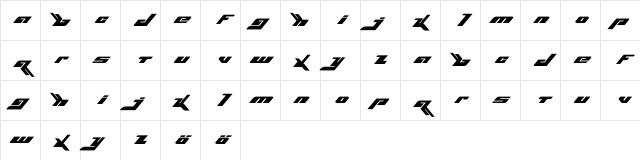
BjorkFont Regular
Design Context for BjorkFont
BjorkFont is a composed and adaptable typeface that performs quietly and consistently across a wide range of design contexts.